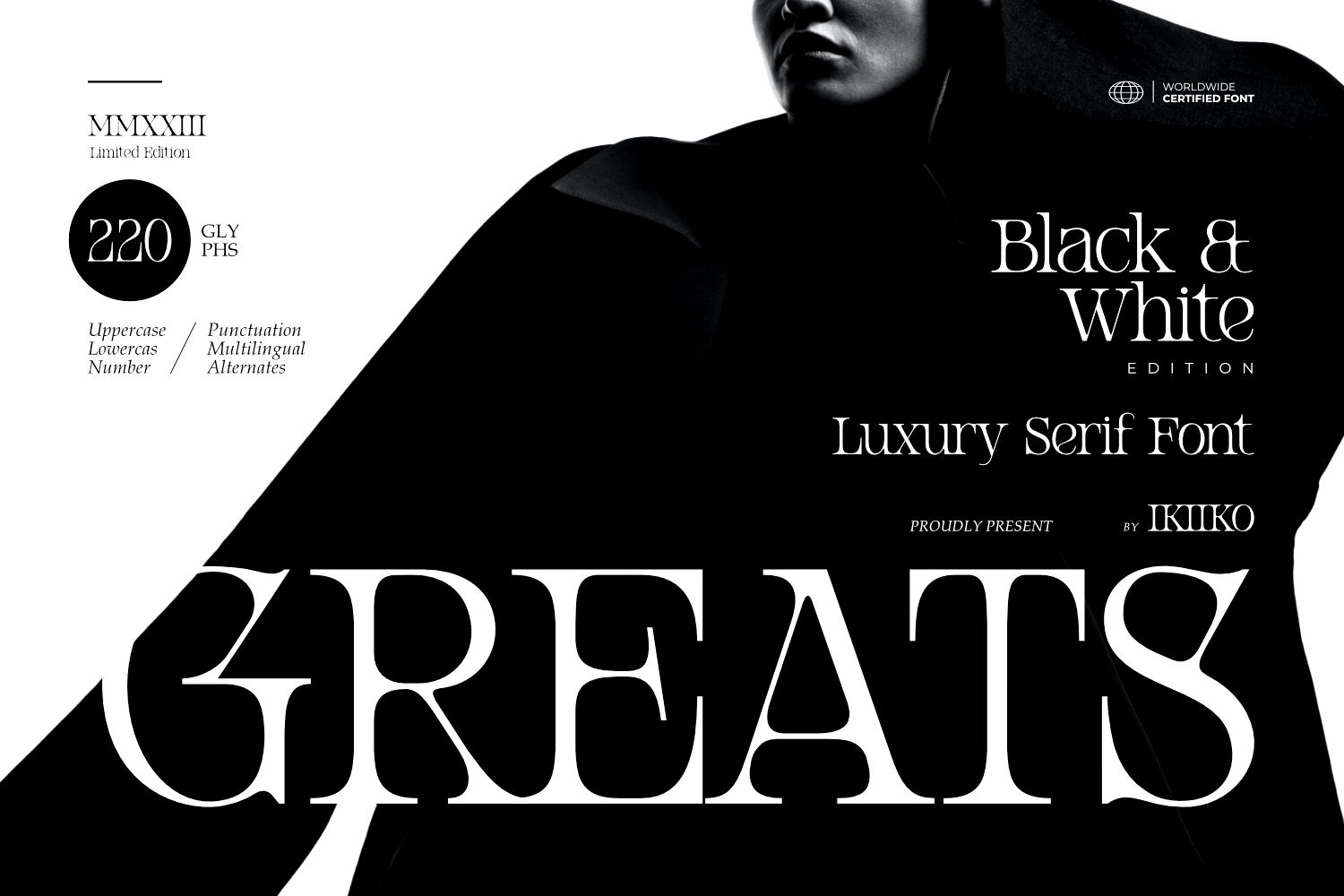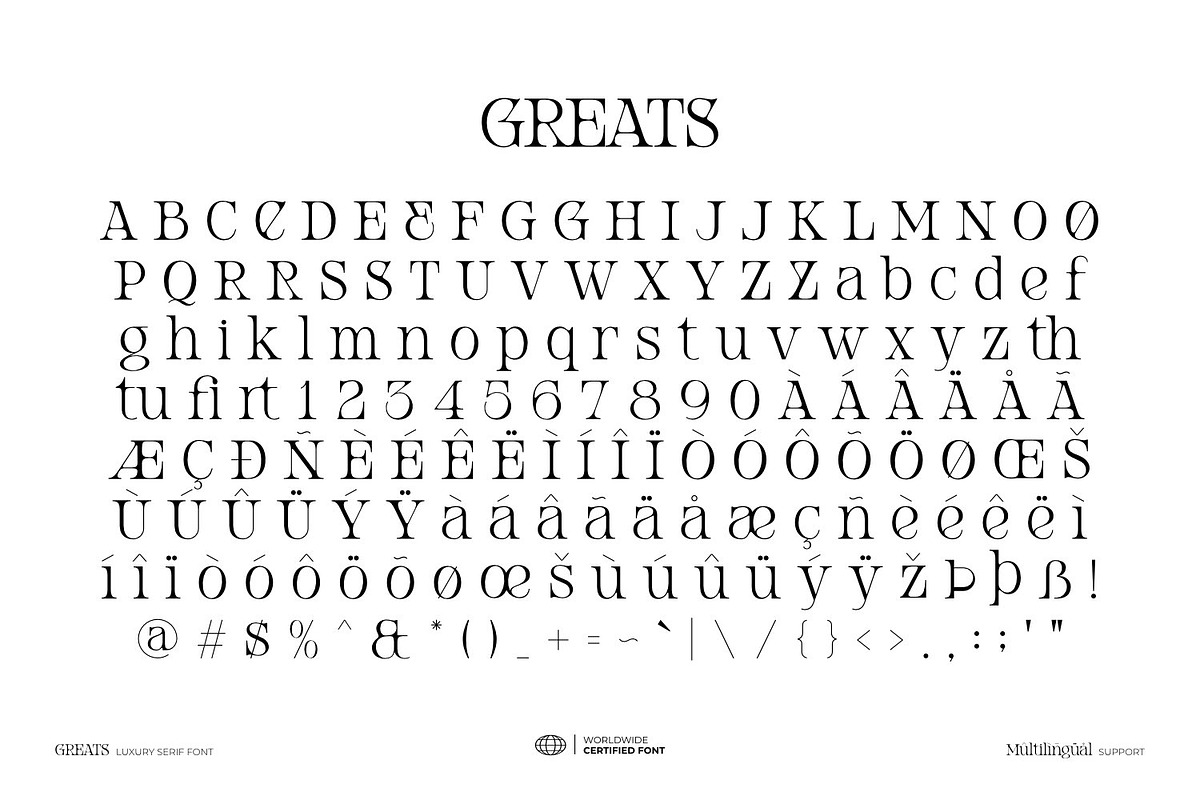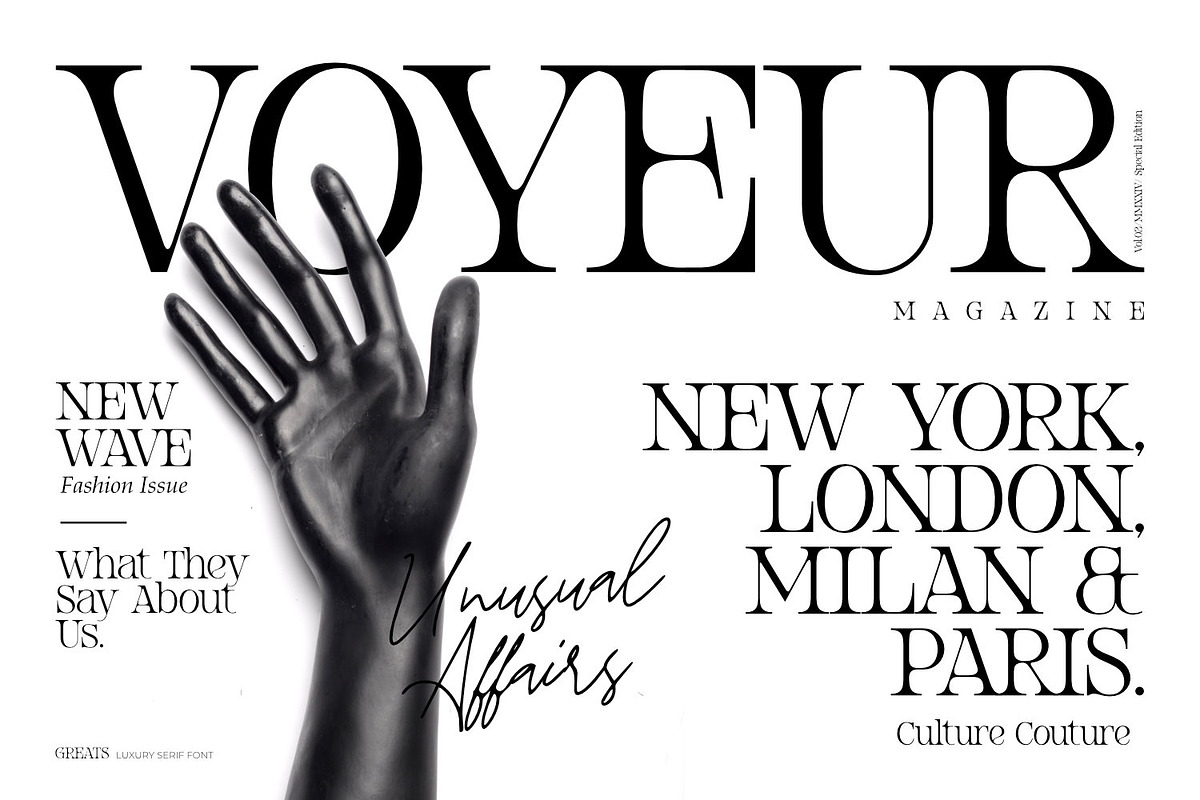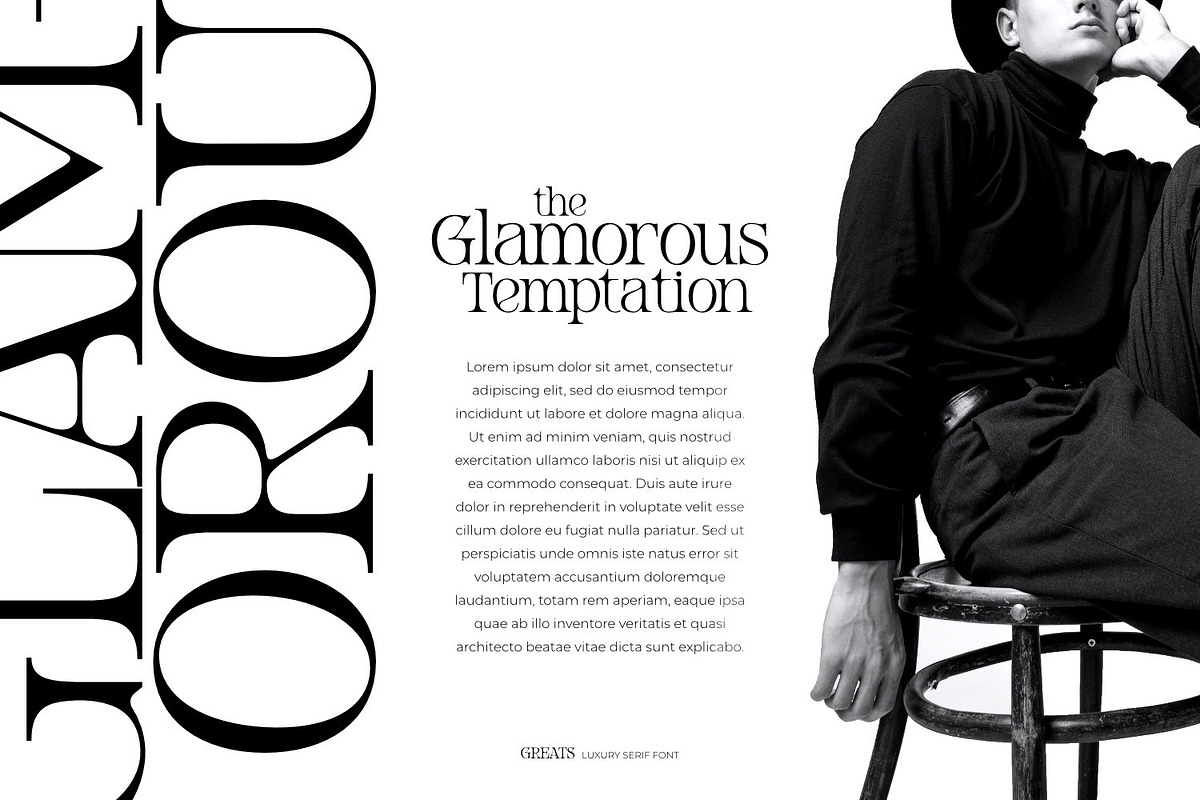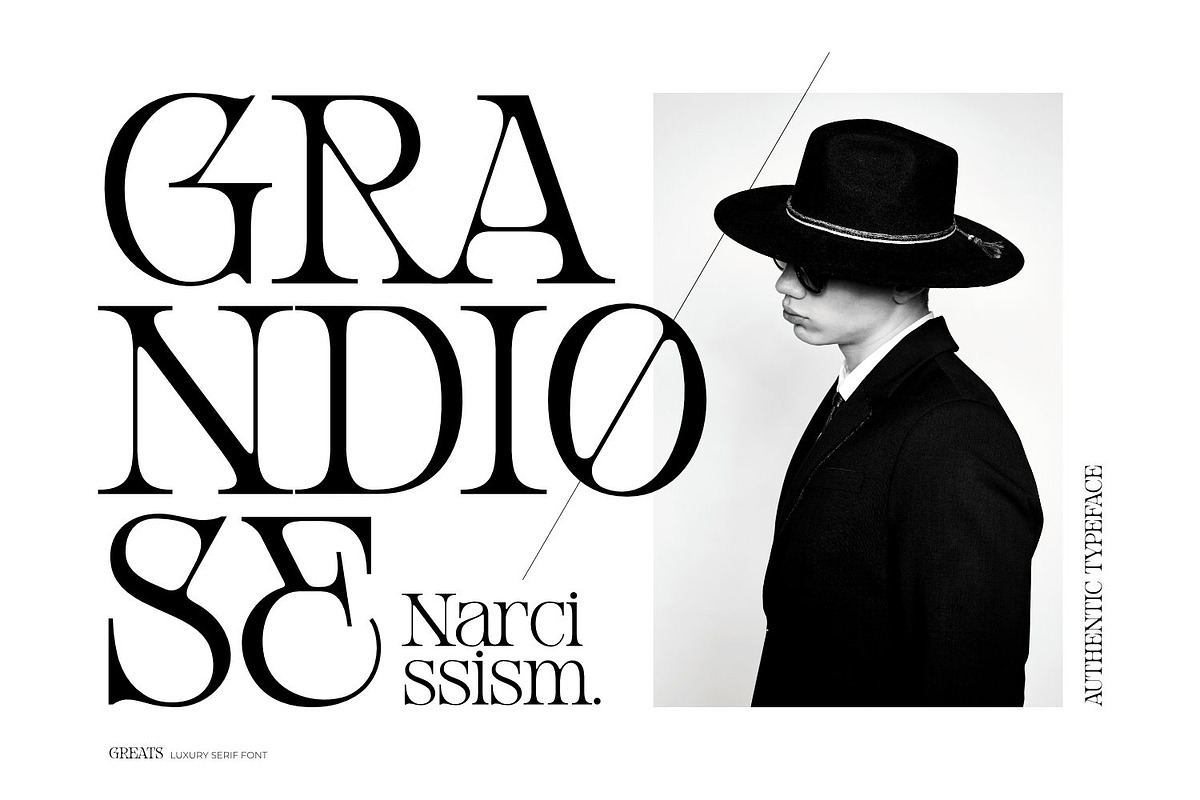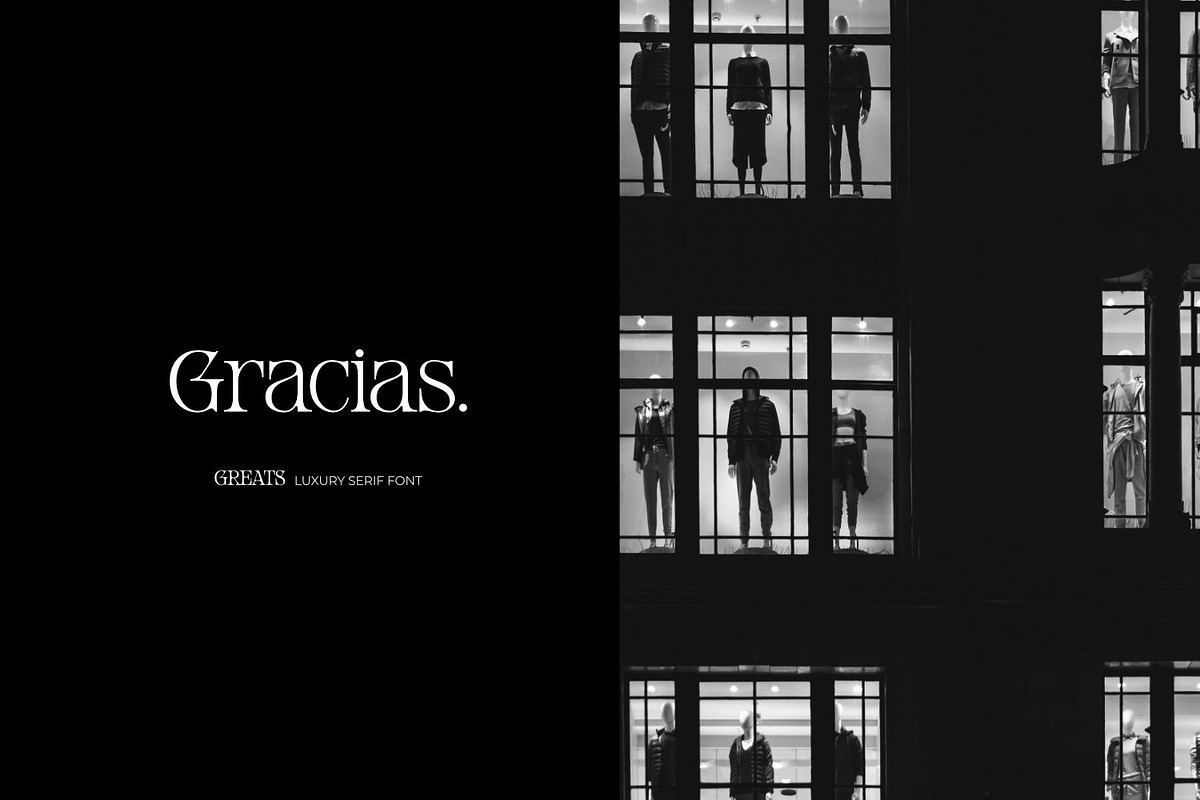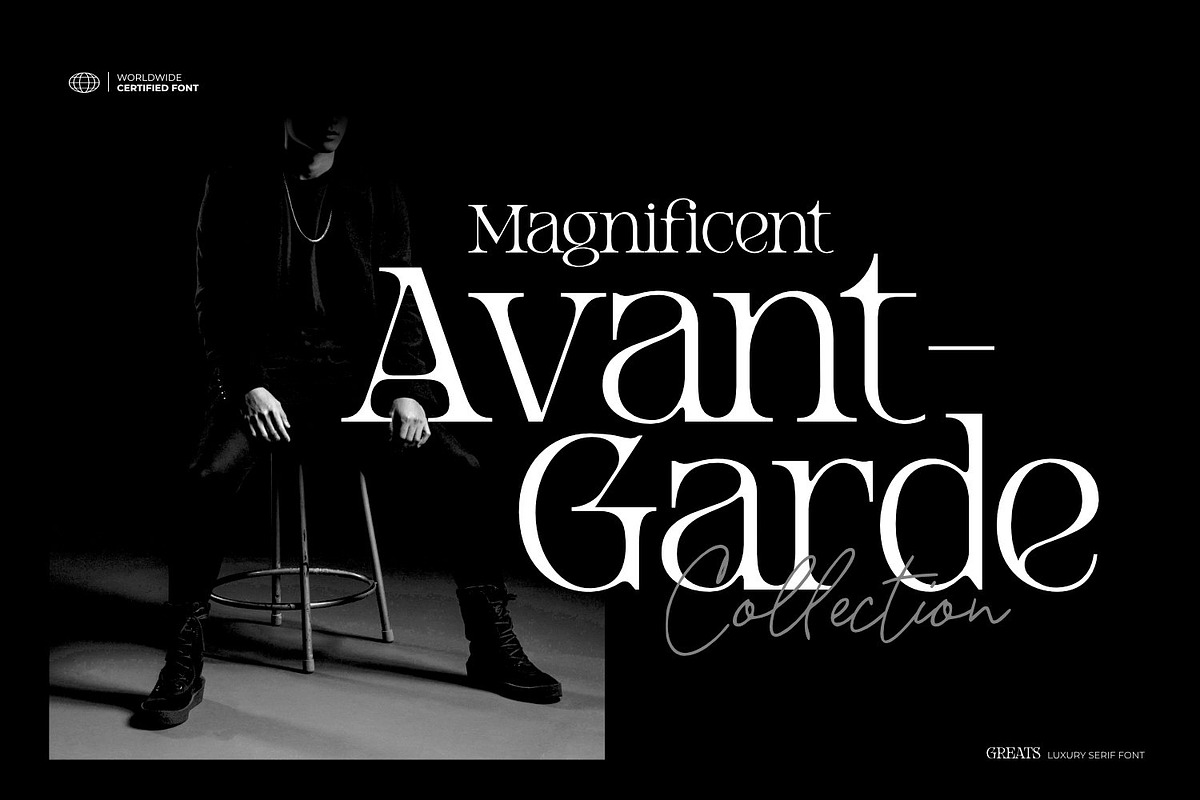
Greats - Luxury Serif Font
Proudly present Greats - Luxury Serif Font, created by ikiiko.
The pinnacle of opulent serif fonts that sexily combine refinement and glitz. Transform the visual identity of your brand with this gorgeous typeface, which was painstakingly designed to radiate sophistication and grandeur.
Greats is the ideal option for fashion-forward brands looking to make a statement because of its traditional elegance and timeless serifs. Its elegant design and minute features provide a beautiful mix between modernity and tradition, giving your writing an air of distinction.
This typeface is perfect for an elegant logo, branding, fashion brand, luxury brand, layout magazine, beauty product, packaging product, perfume, quotes, or simply as a stylish text overlay to any background image.